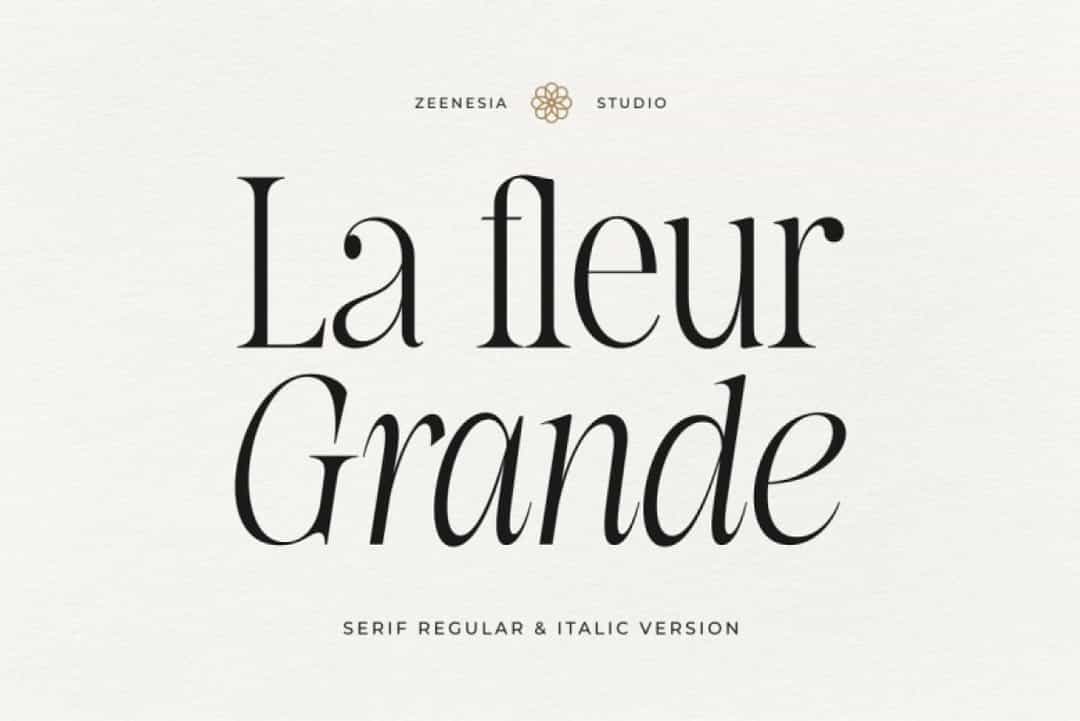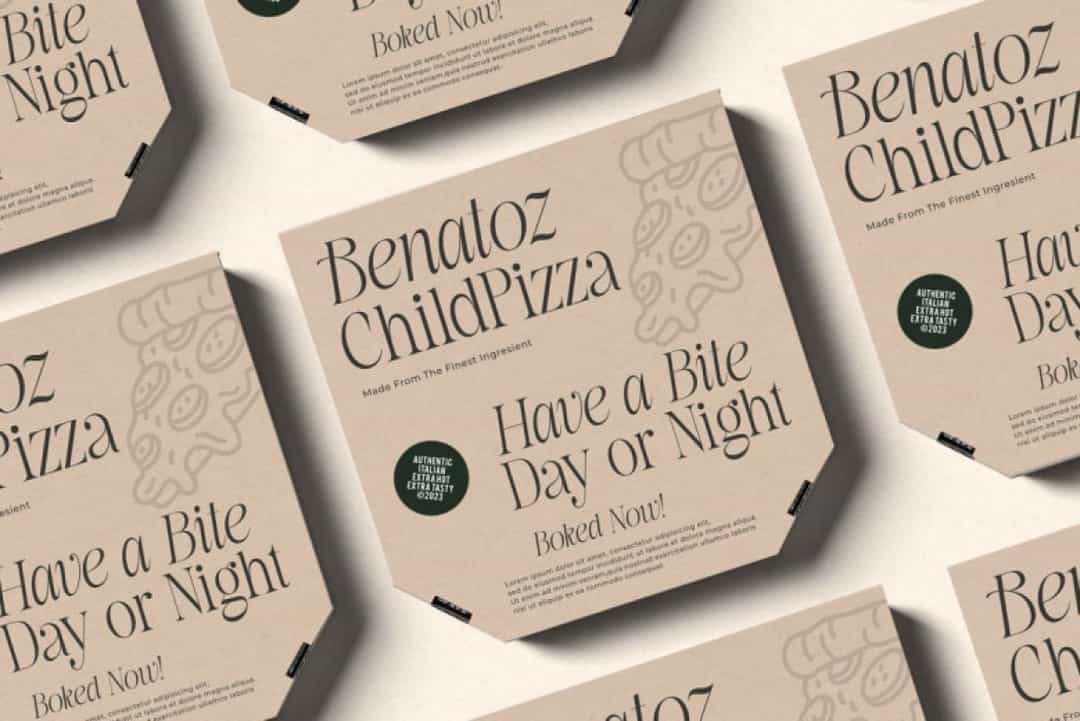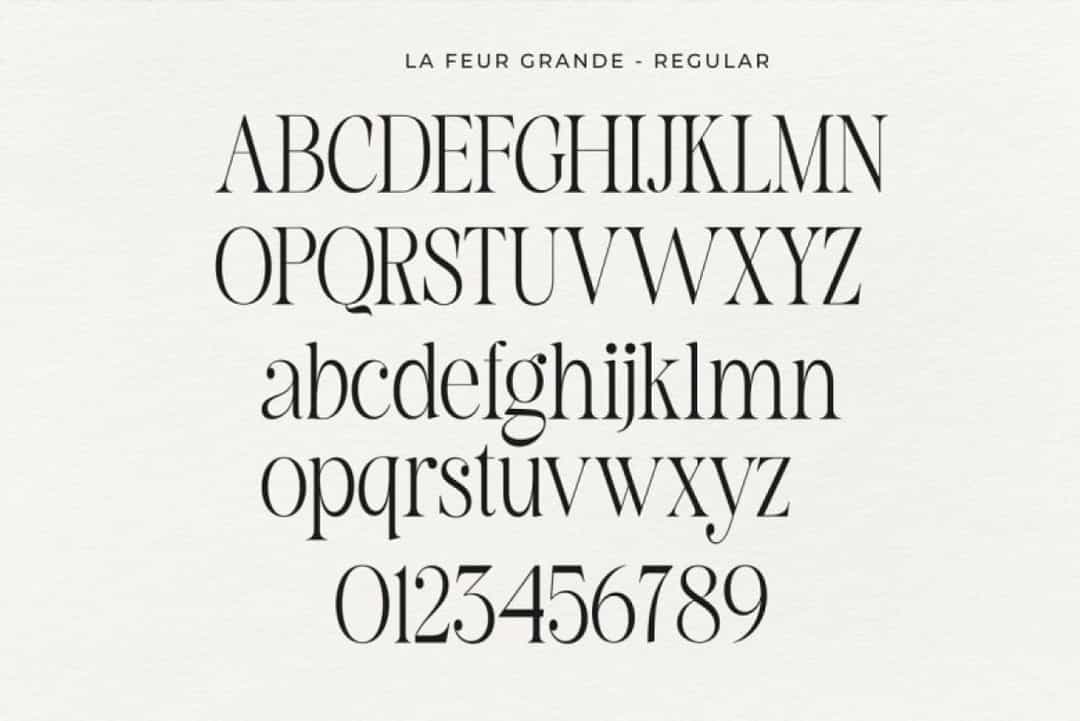
La Fleur Grande is an exquisite and elegant combination of serif and regular typeface fonts, creating a versatile large font perfect for use with editorial projects, logo design web font branding products magazines or as an attractive text overlay on images. Stylistic Alternative and Ligature will ensure your project stands out.